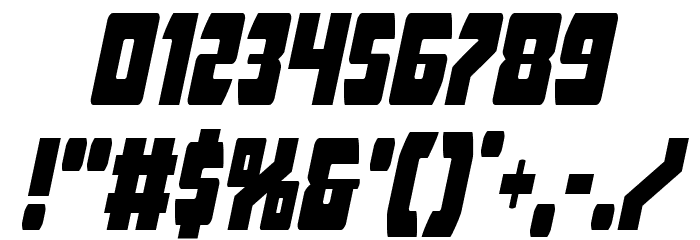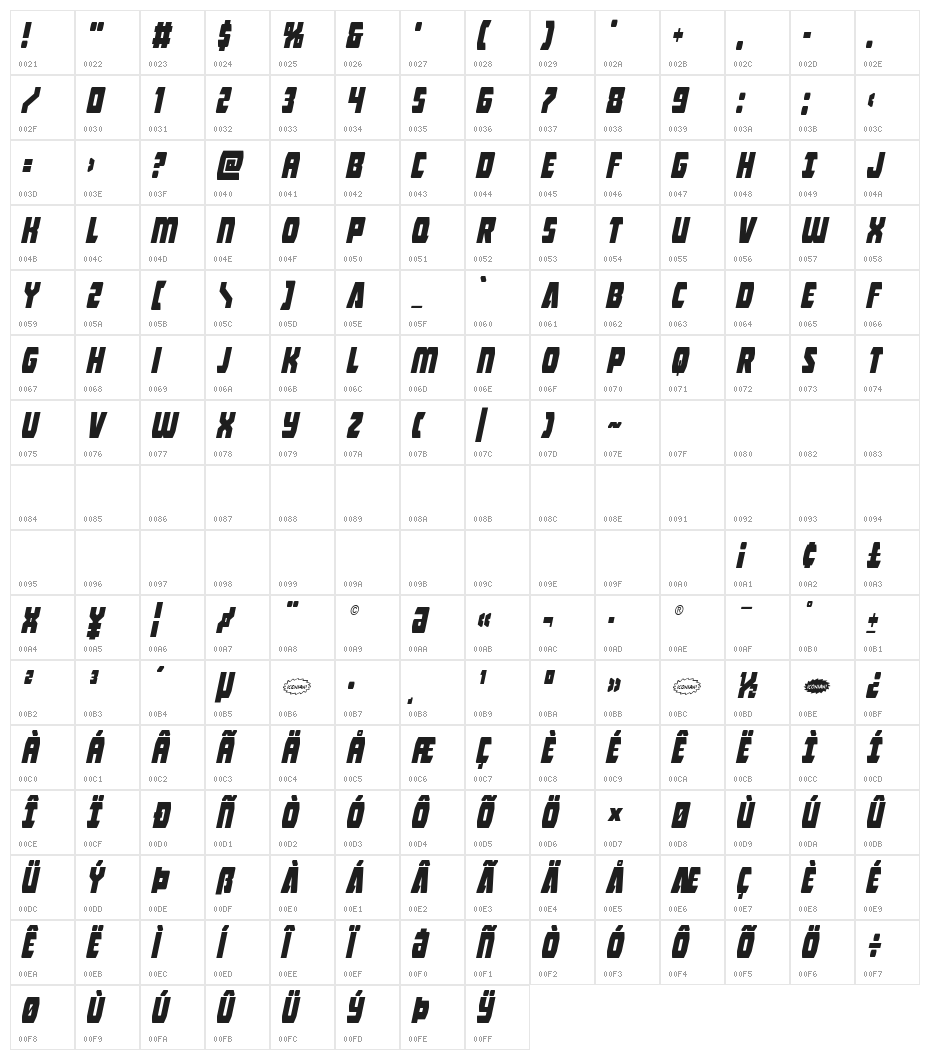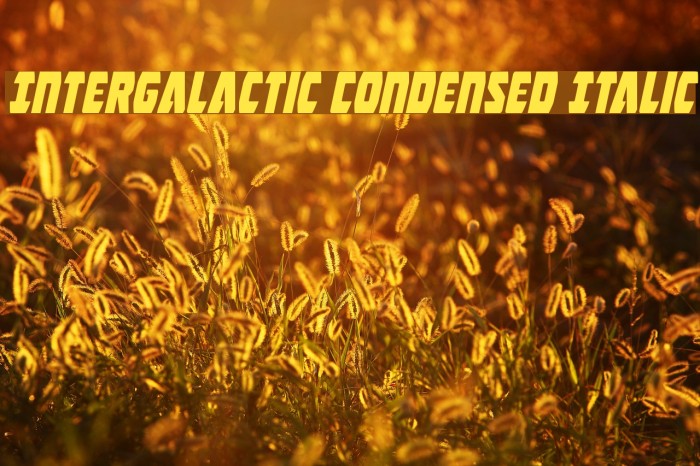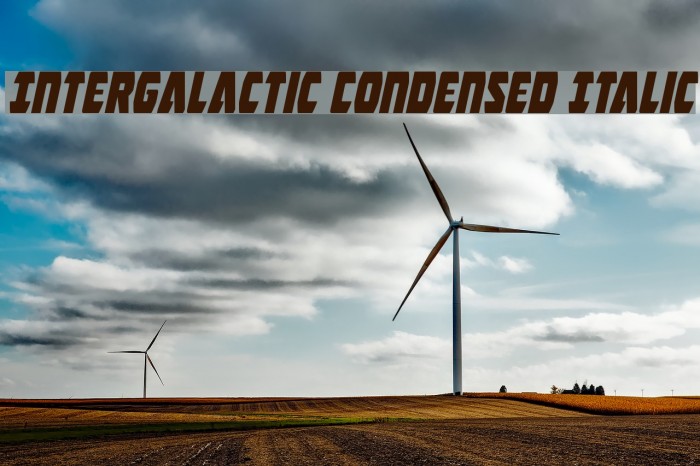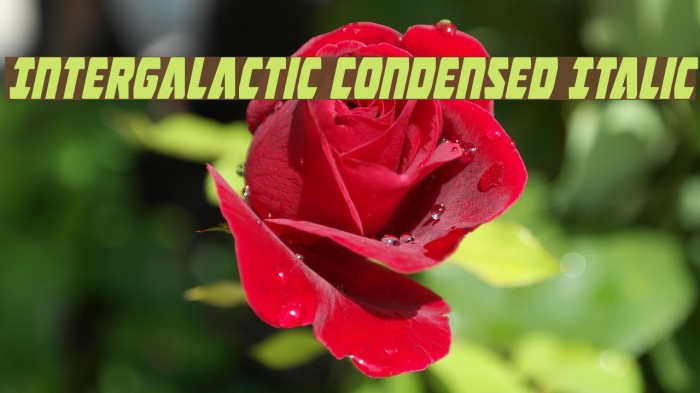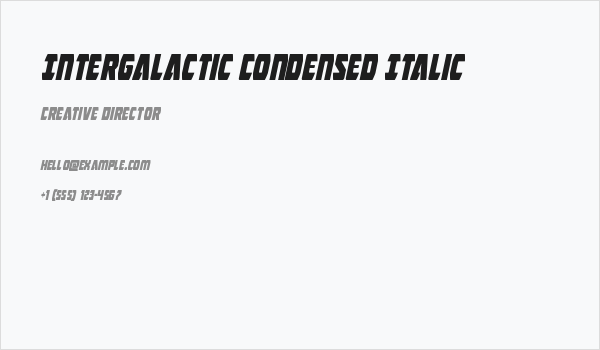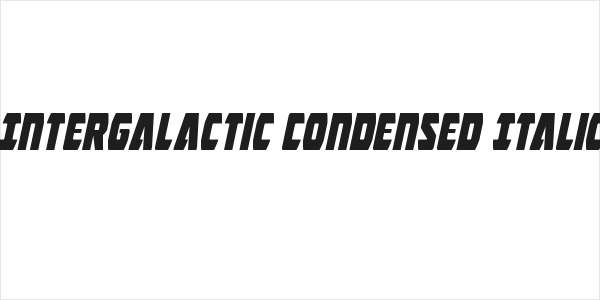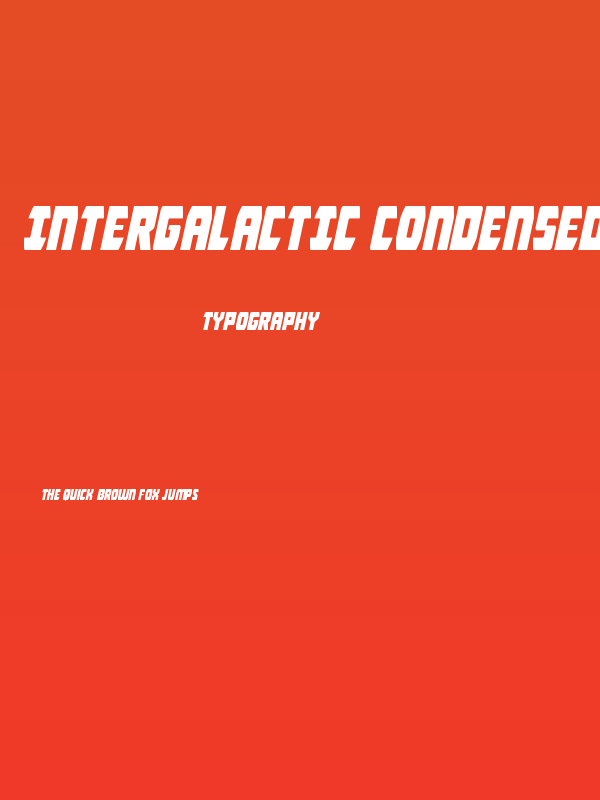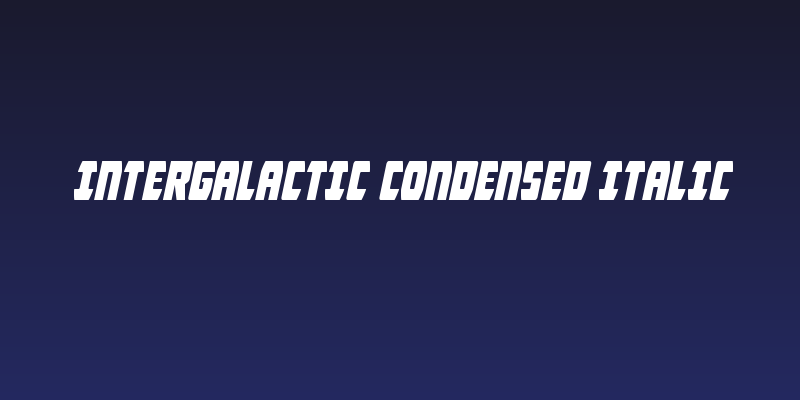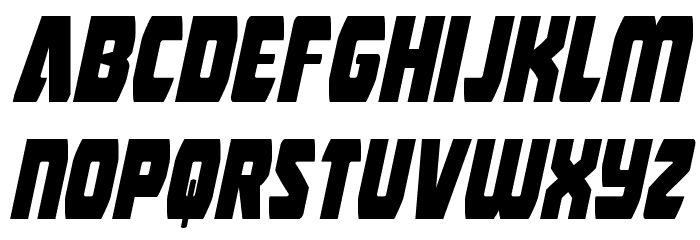
Intergalactic Condensed Italic Font
Intergalactic Condensed Italic Description
This font features a bold, futuristic design with a condensed and italicized style. The characters are sharply angled, giving a sense of speed and modernity. The uppercase and lowercase letters maintain a consistent width, enhancing the uniformity of the text. The numbers and special characters follow the same angular and condensed design, ensuring a cohesive look across all glyphs. This font is ideal for projects that require a dynamic and contemporary aesthetic, such as sci-fi themed designs or modern branding.
| Proposed Projects | Ideal for sci-fi themed designs, modern branding, video game titles, and futuristic posters. |